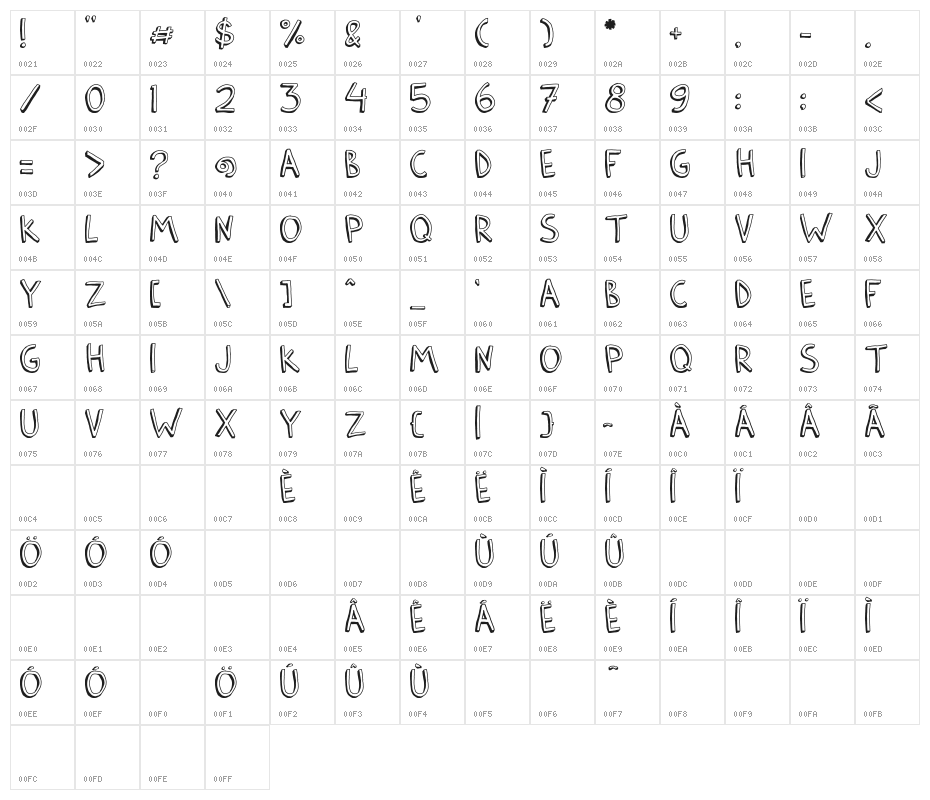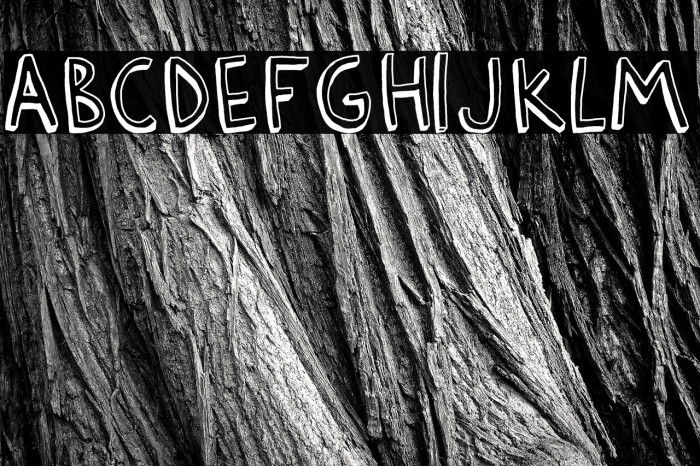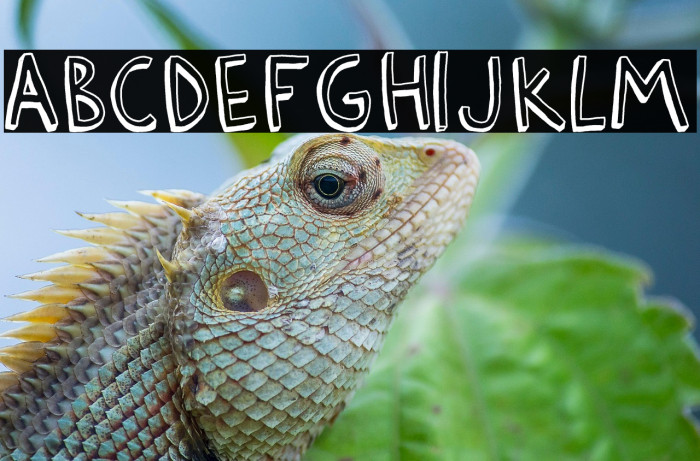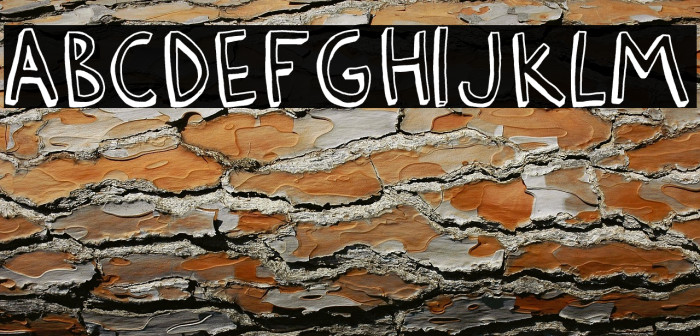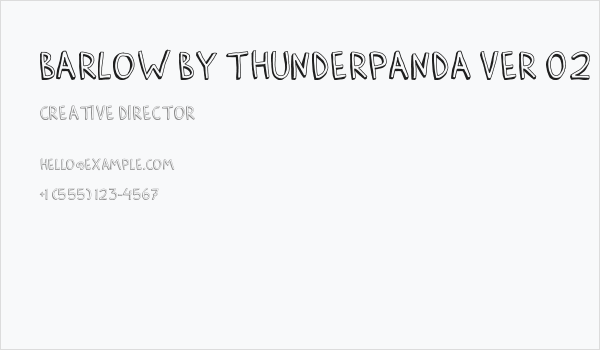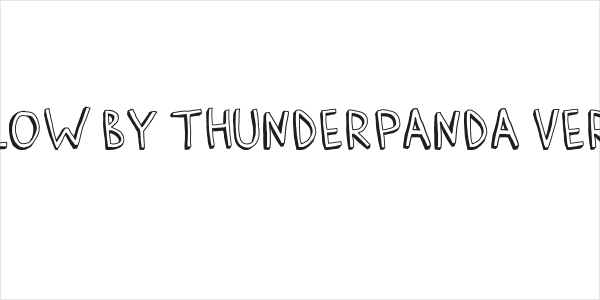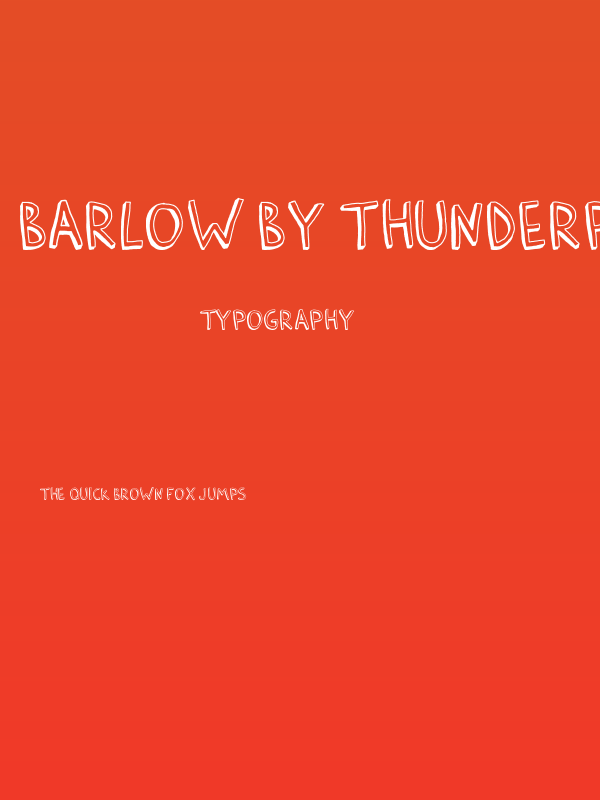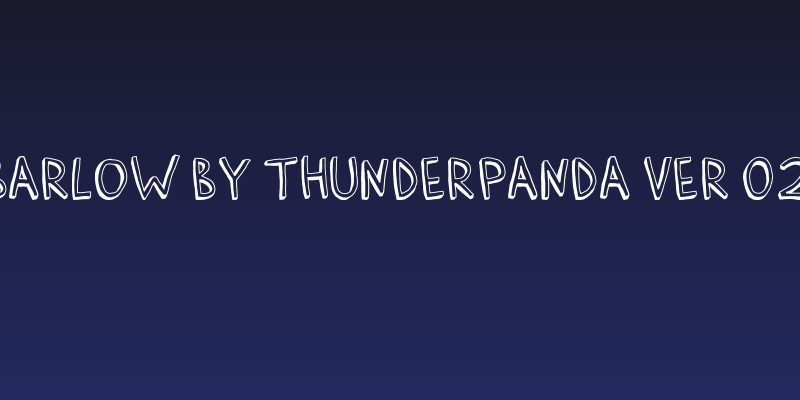
Barlow by Thunderpanda ver 02 Font
Barlow by Thunderpanda ver 02 Description
This font features a playful and hand-drawn style, characterized by its bold, uneven strokes and slightly irregular shapes. The letters have a casual, informal appearance, with a sense of movement and energy. The uppercase and lowercase characters maintain a consistent style, with rounded edges and a slightly exaggerated width. The numbers and special characters follow the same whimsical design, making the font suitable for creative and fun projects. The overall look is approachable and friendly, perfect for conveying a sense of warmth and personality.
| Proposed Projects | Ideal for children's books, playful branding, casual invitations, and creative posters. |